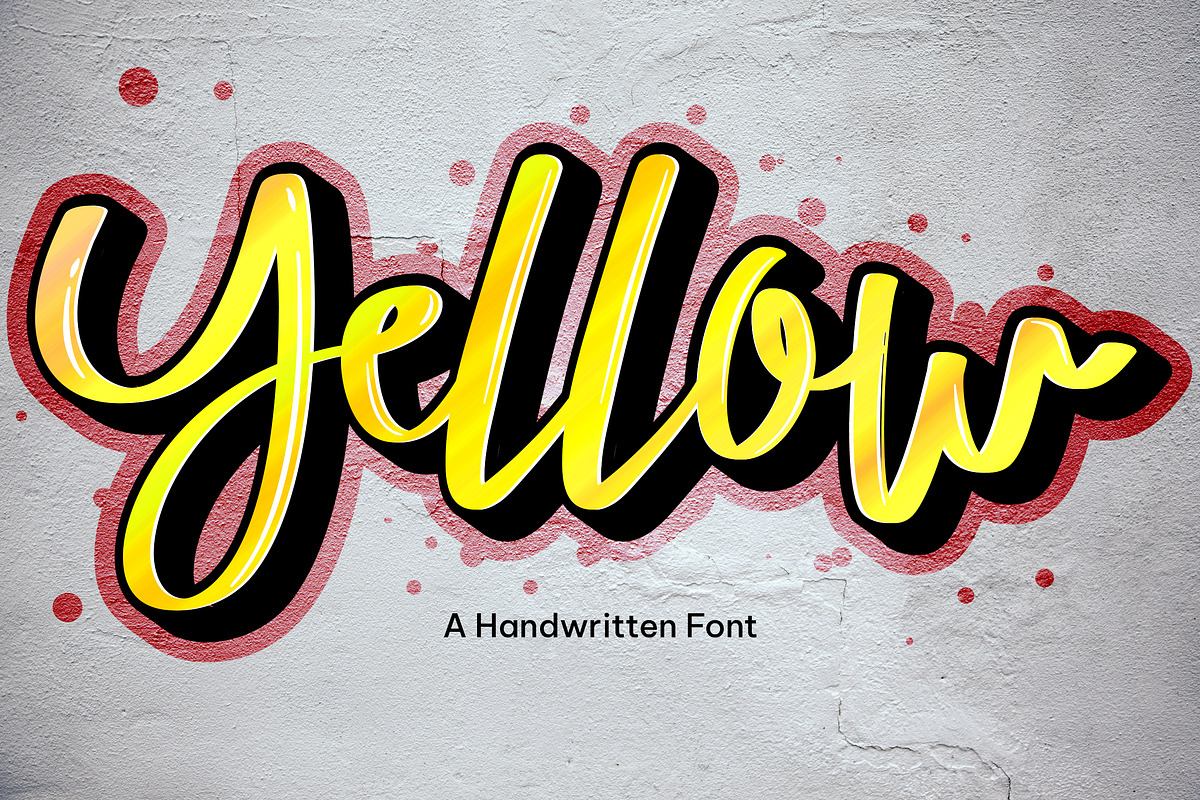
Yellow Font Free Download is a vibrant and bold typeface that exudes energy and creativity. With its strong, modern lines and distinctive character, this font is perfect for eye-catching headlines, branding, logos, posters, and any design project that needs a pop of color and style.
Whether you're creating a fun brand identity, designing a colorful promotional piece, or adding bold typography to your artwork, Yellow Font brings brightness and attention to detail to your typography. It’s the perfect font for designers who want their work to stand out with bold, modern style.